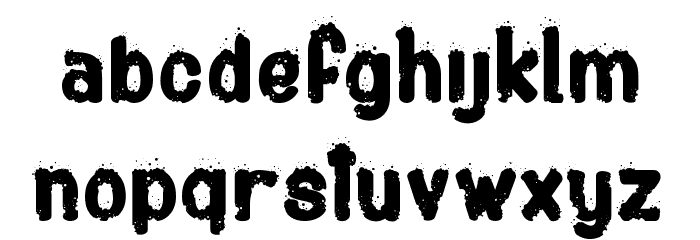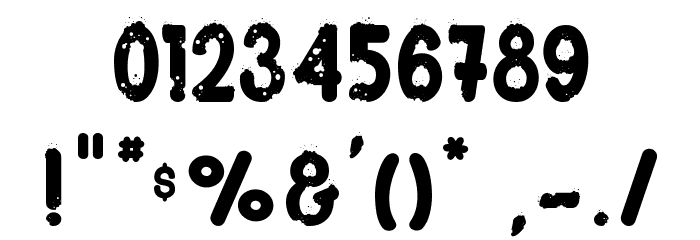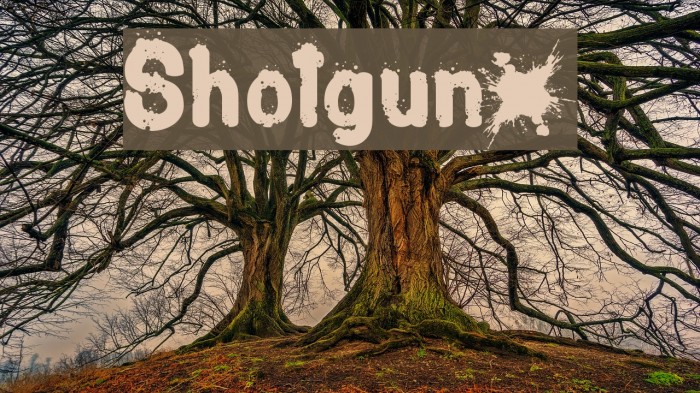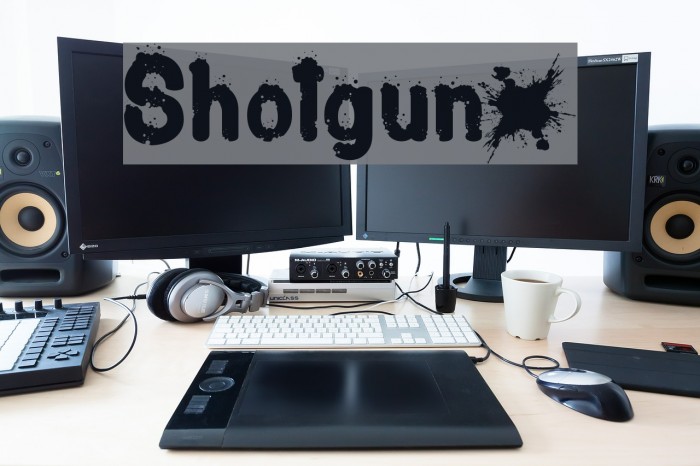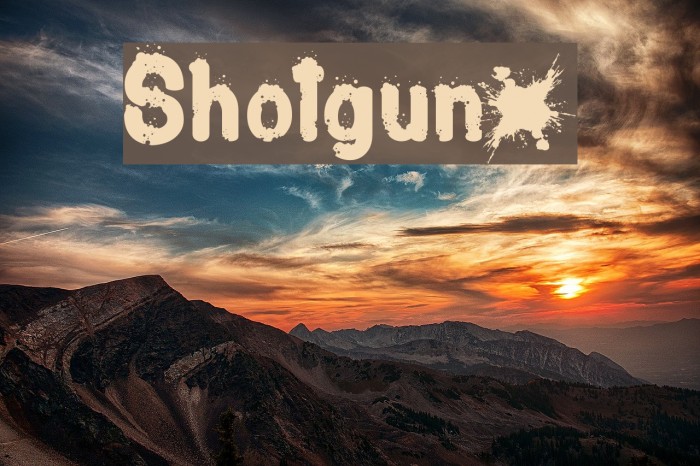
Shotgunµ Font
This font features a bold and distressed style, characterized by rough edges and a textured appearance that mimics a splattered or worn effect. The uppercase and lowercase letters maintain a consistent weight, providing a strong visual impact. The numbers and special characters follow the same design, ensuring uniformity across all glyphs. The font's unique style makes it stand out, with each character appearing as if it has been stamped or spray-painted, adding a rugged and dynamic feel. This design is ideal for projects that require a bold statement or an edgy, urban aesthetic.
- Proposed Projects: Ideal for posters, album covers, streetwear branding, and event flyers.